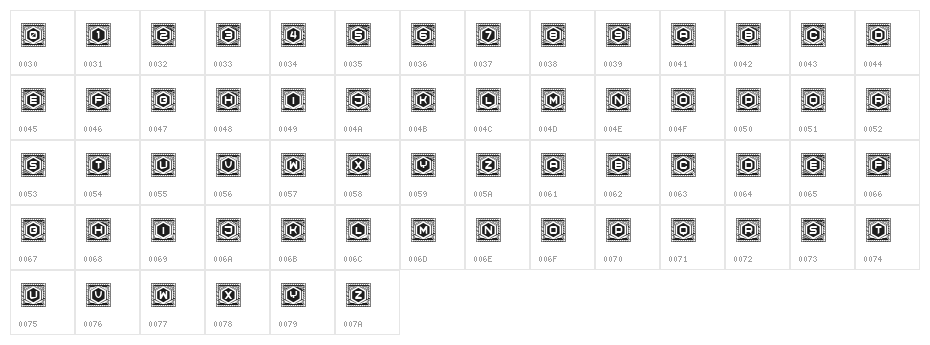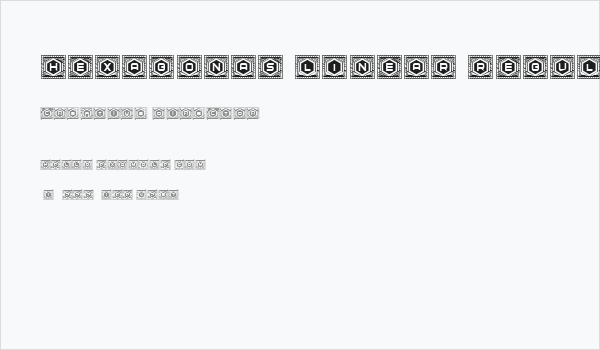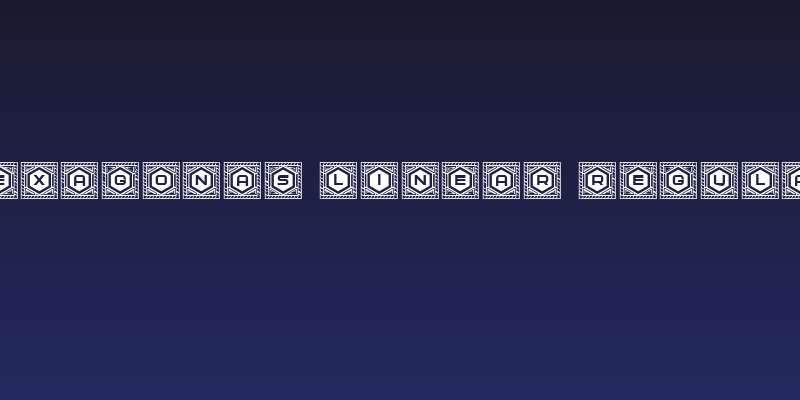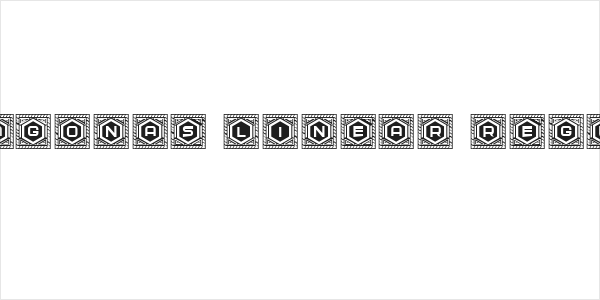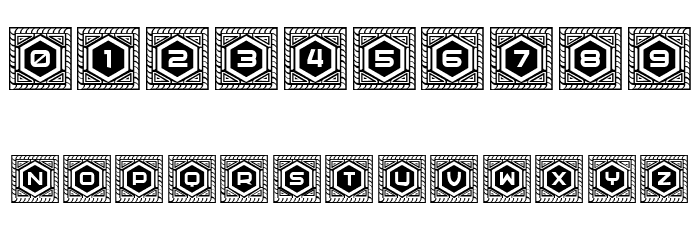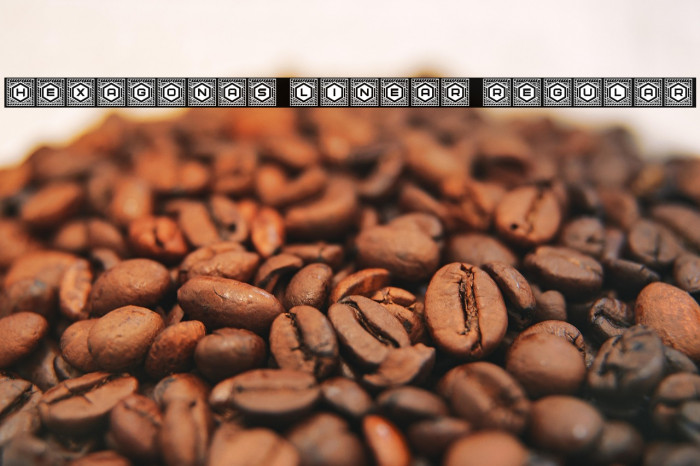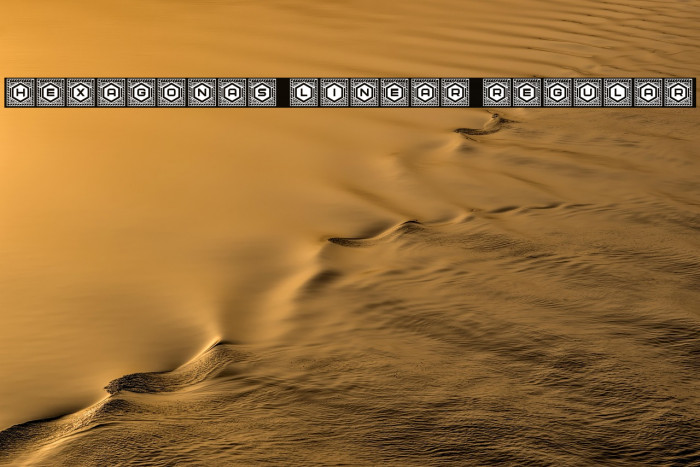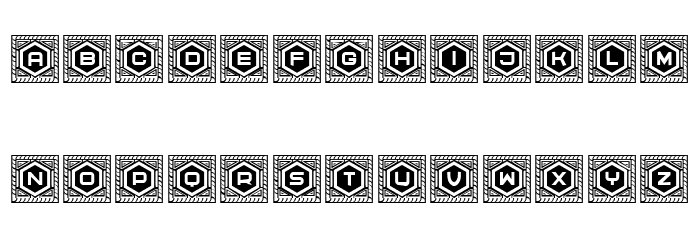
Hexagonas Linear Regular Font
Hexagonas Linear Regular Description
This font features a unique geometric design, with each character enclosed within a hexagonal frame. The letters and numbers are bold and prominent, set against a patterned background that enhances their visibility. The style is distinctly decorative, making it ideal for eye-catching designs. The characters are evenly spaced within their hexagonal borders, providing a consistent and structured appearance. The contrast between the thick strokes of the characters and the intricate patterns of the background creates a visually engaging effect. This font is perfect for projects that require a modern and artistic touch.
| Use Case | Logos, Posters, Branding |
| Proposed Projects | Ideal for posters, logos, branding, and any design needing a bold, artistic flair. |